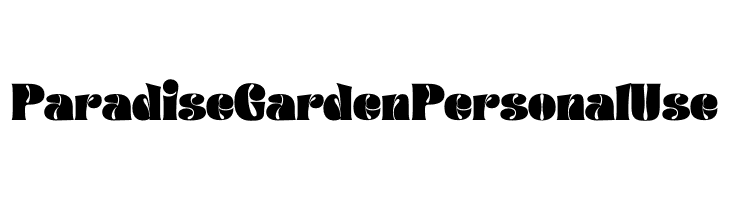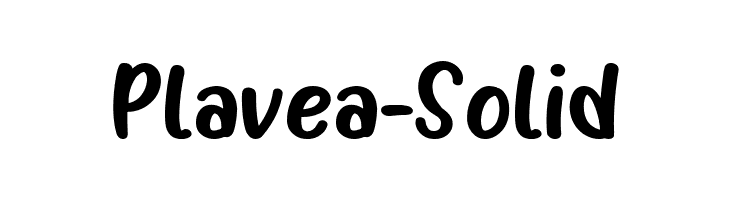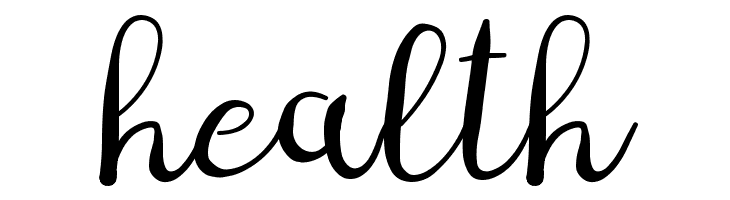
A handcrafted, playful font with an organic, handwritten style.
A bold, modern script font with flowing, connected letters.
A whimsical, gothic-inspired font with playful curves and sharp edges.
A bold, distressed font with a rugged, grunge texture and a clean alternative.
An elegant italic serif font with flowing lines and refined serifs.
A playful, casual handwritten font with an informal, organic style.
A bold, geometric font with a 3D outline and futuristic style.
A playful, bold handwritten font with smooth, rounded edges.